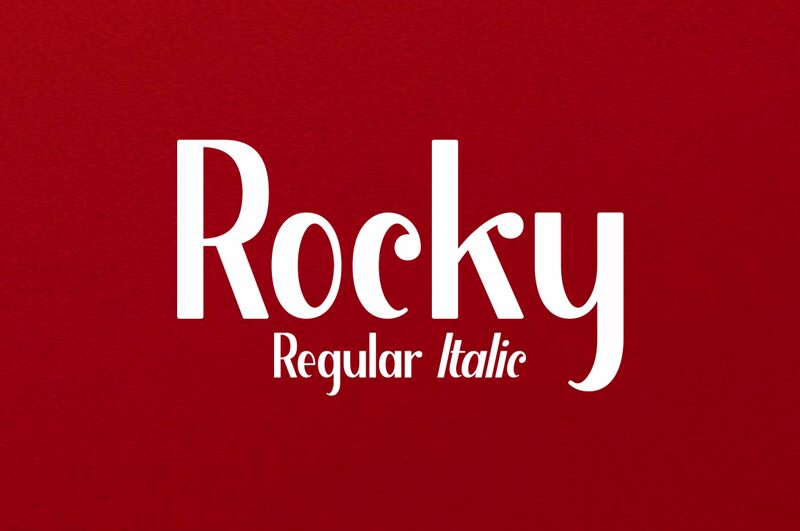
Rocky italic
NJ Studio brings you the bold and daring Rocky italic font, perfect for making a statement on any project. This sans serif typeface offers a unique style with its condensed width, providing ample space for text while maintaining a sleek and modern look. Whether it's used for headlines or body text, Rocky italic is sure to draw attention and add personality to any project. From edgy fashion magazines to adventurous travel blogs, this font is suitable for a variety of creative ventures that require a touch of boldness. Experience the power of Rocky italic today!